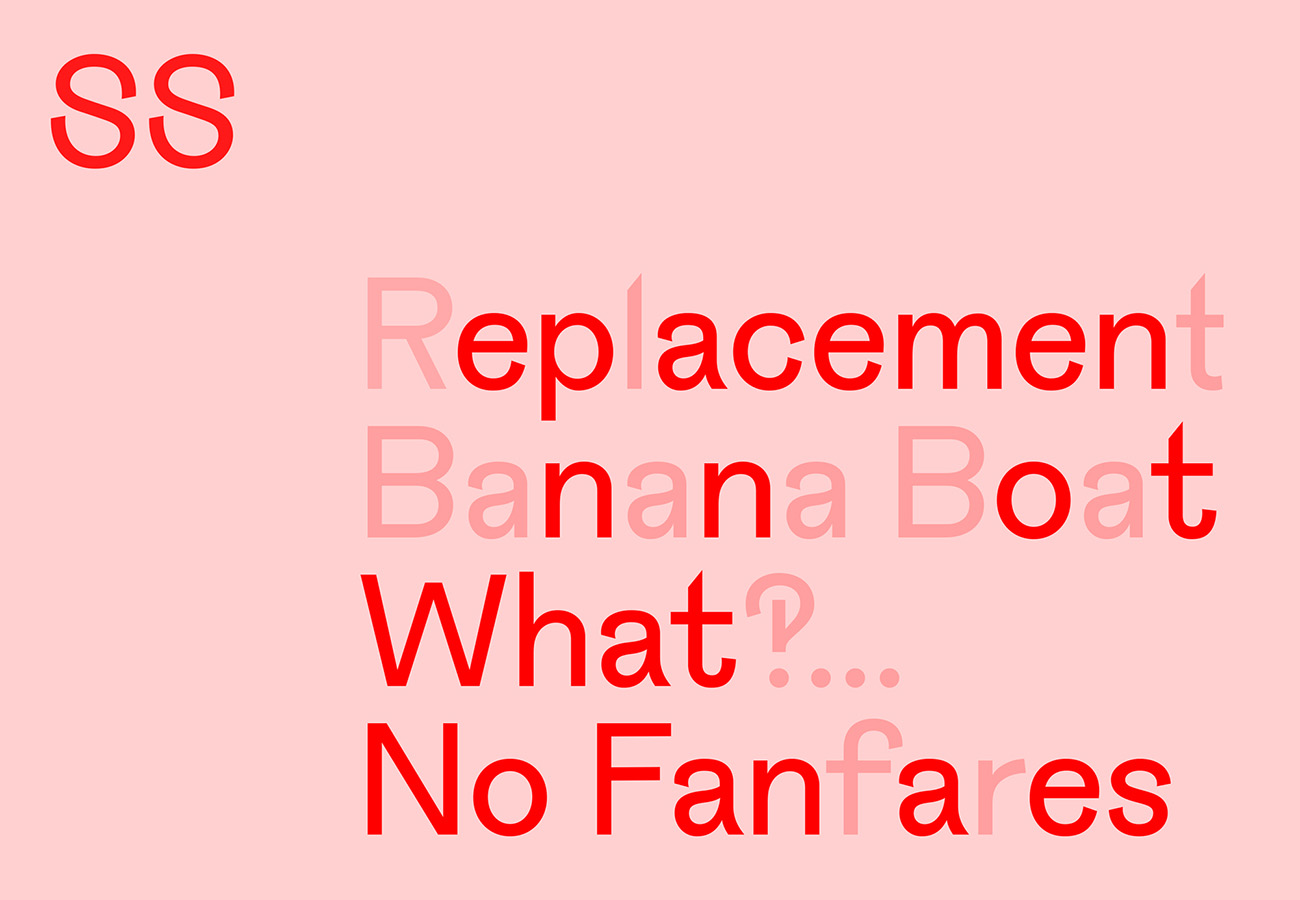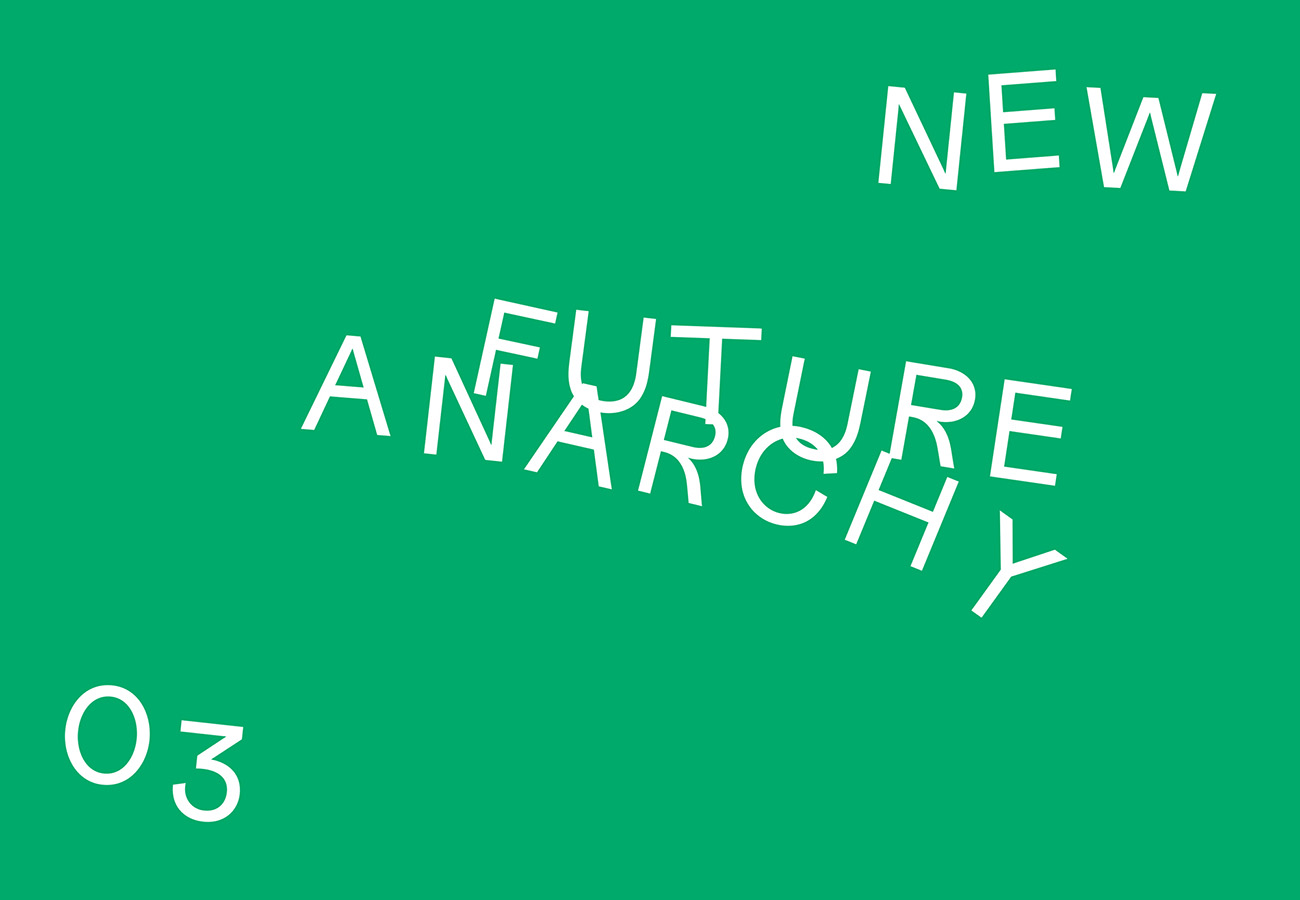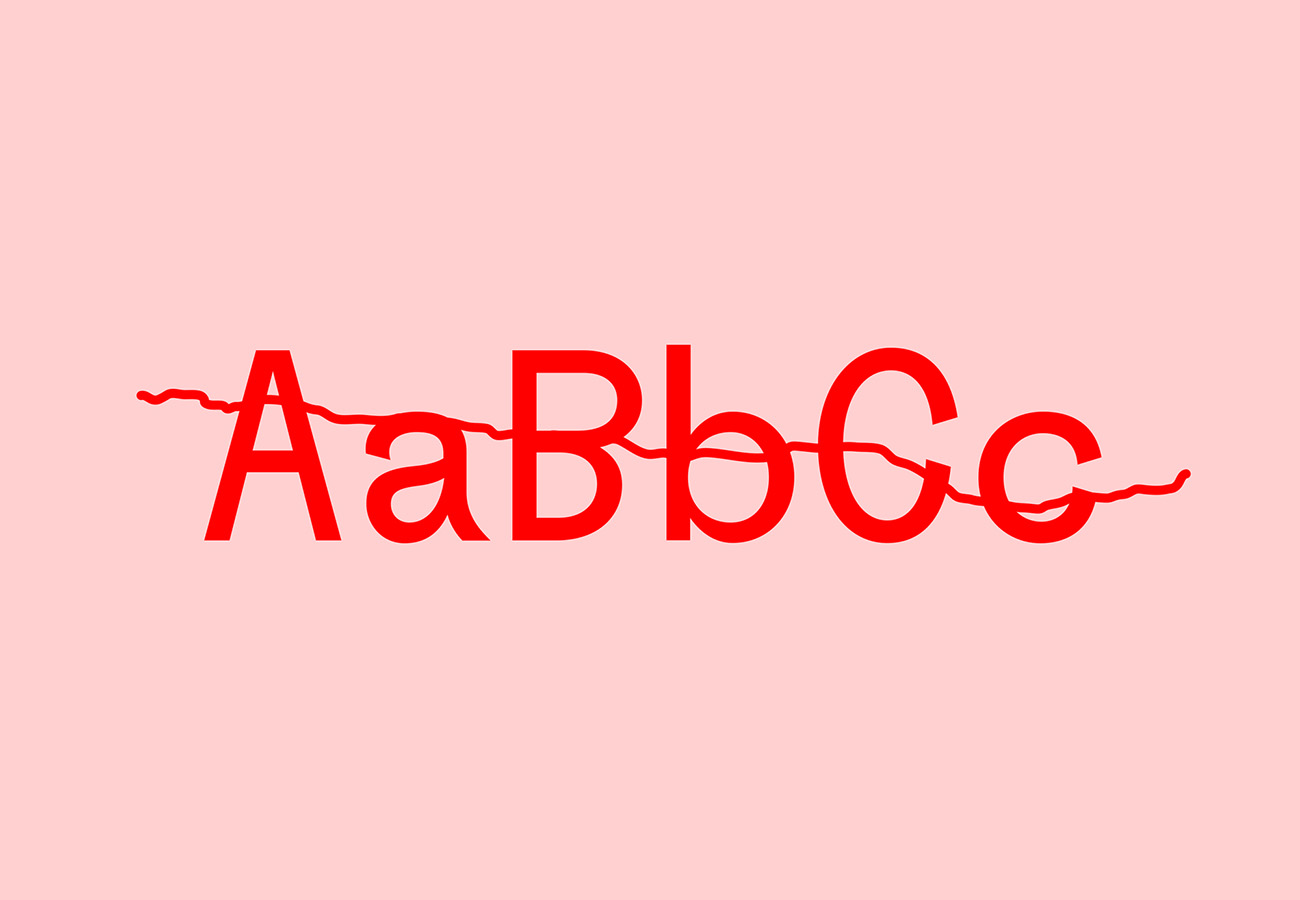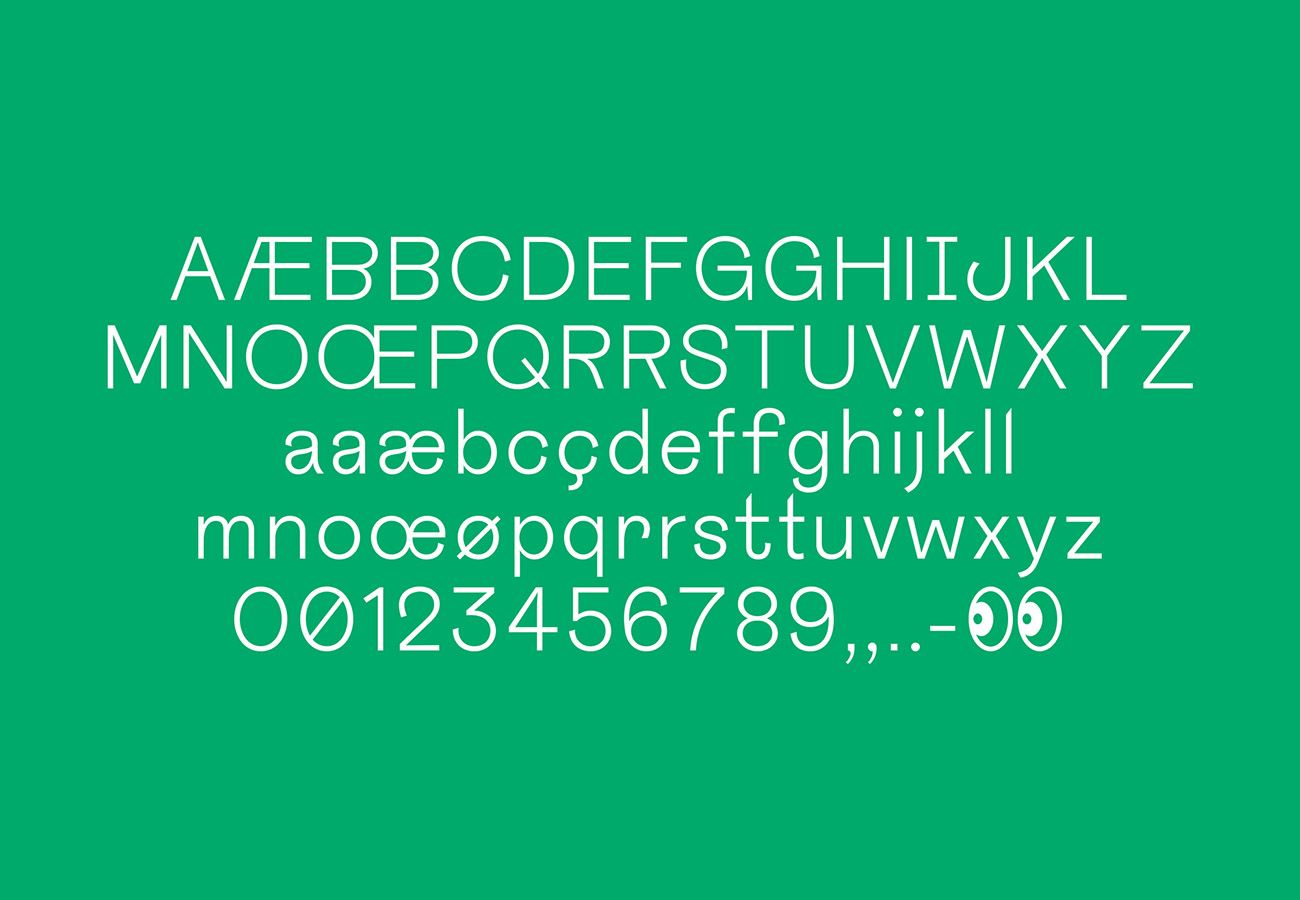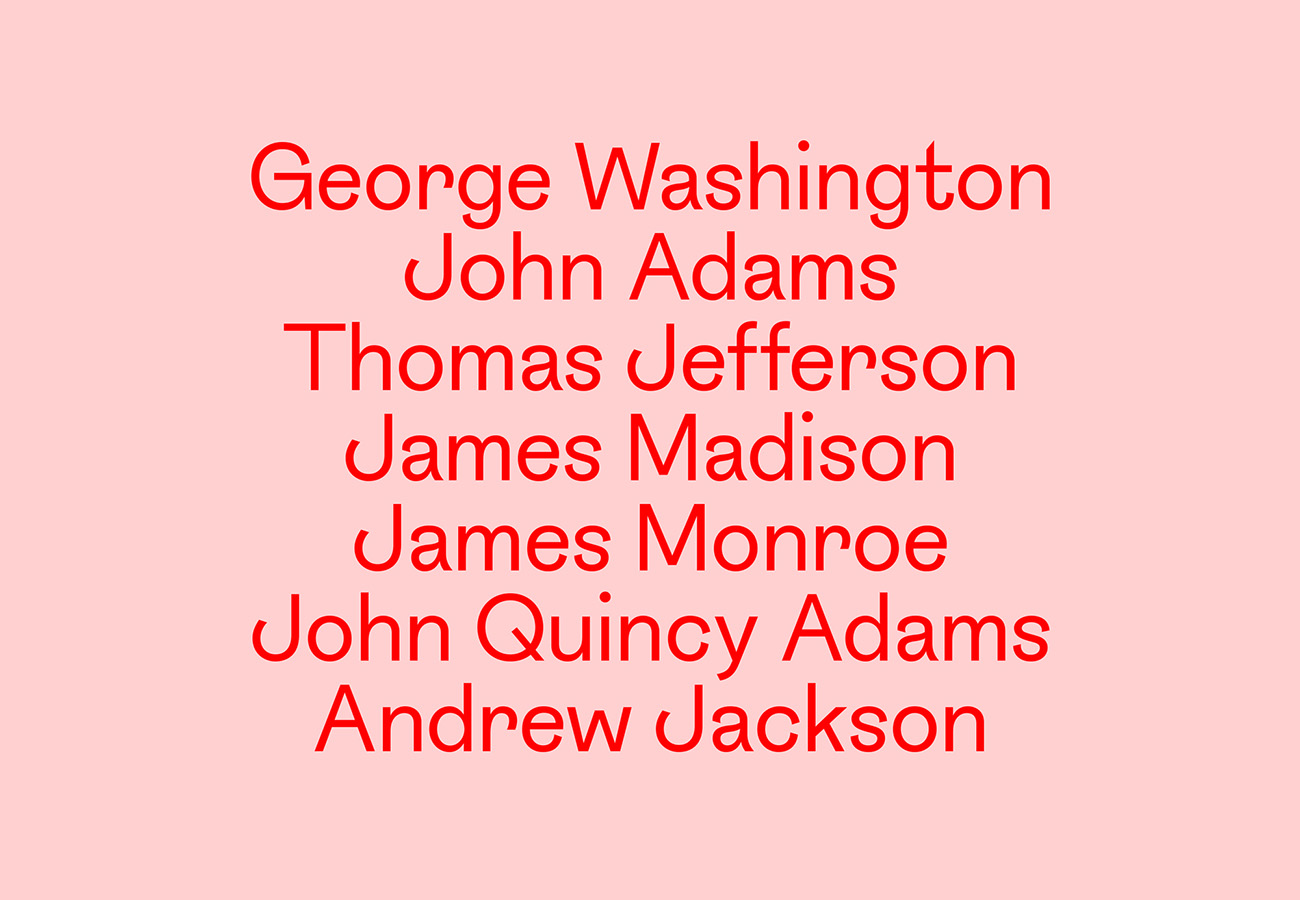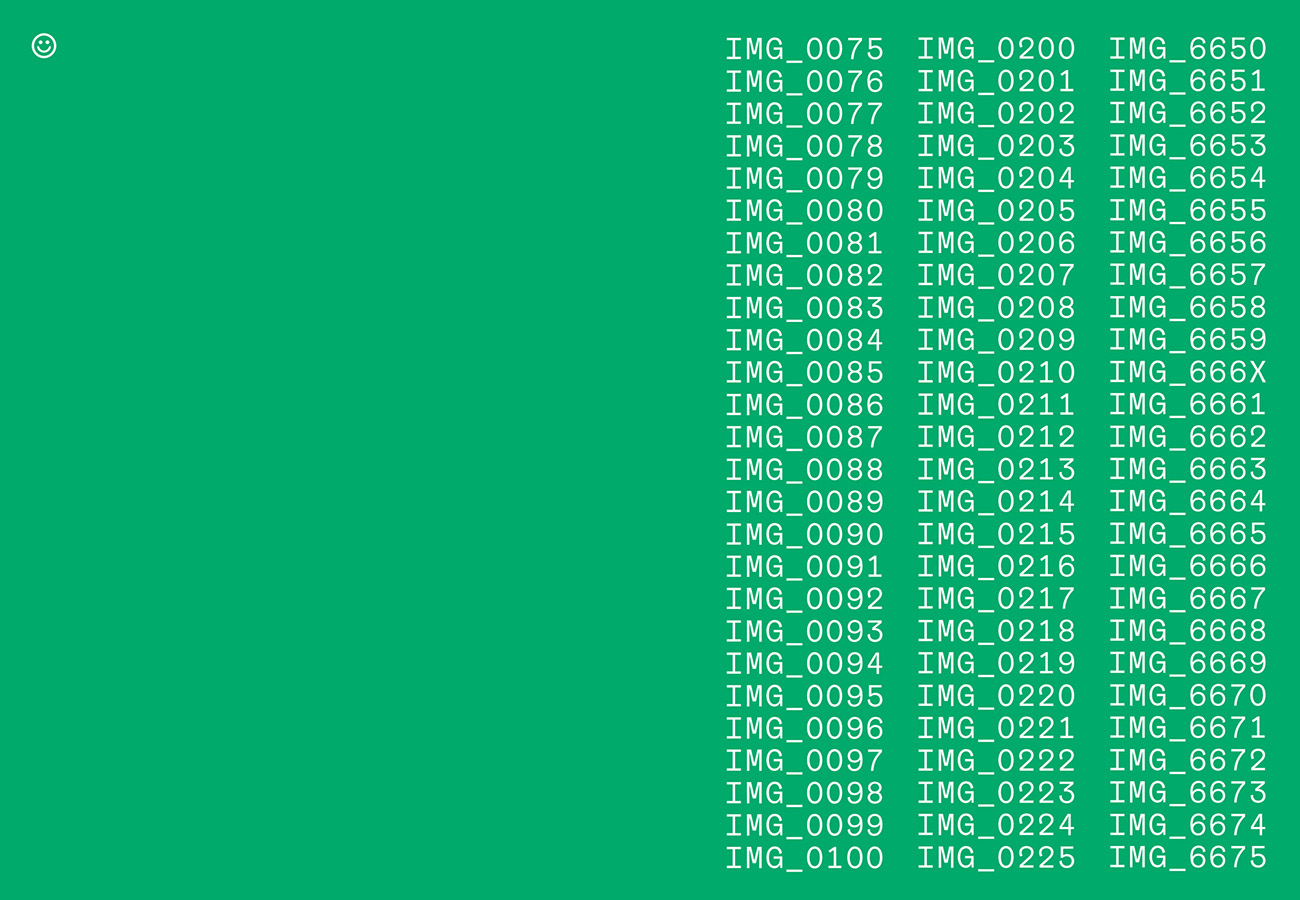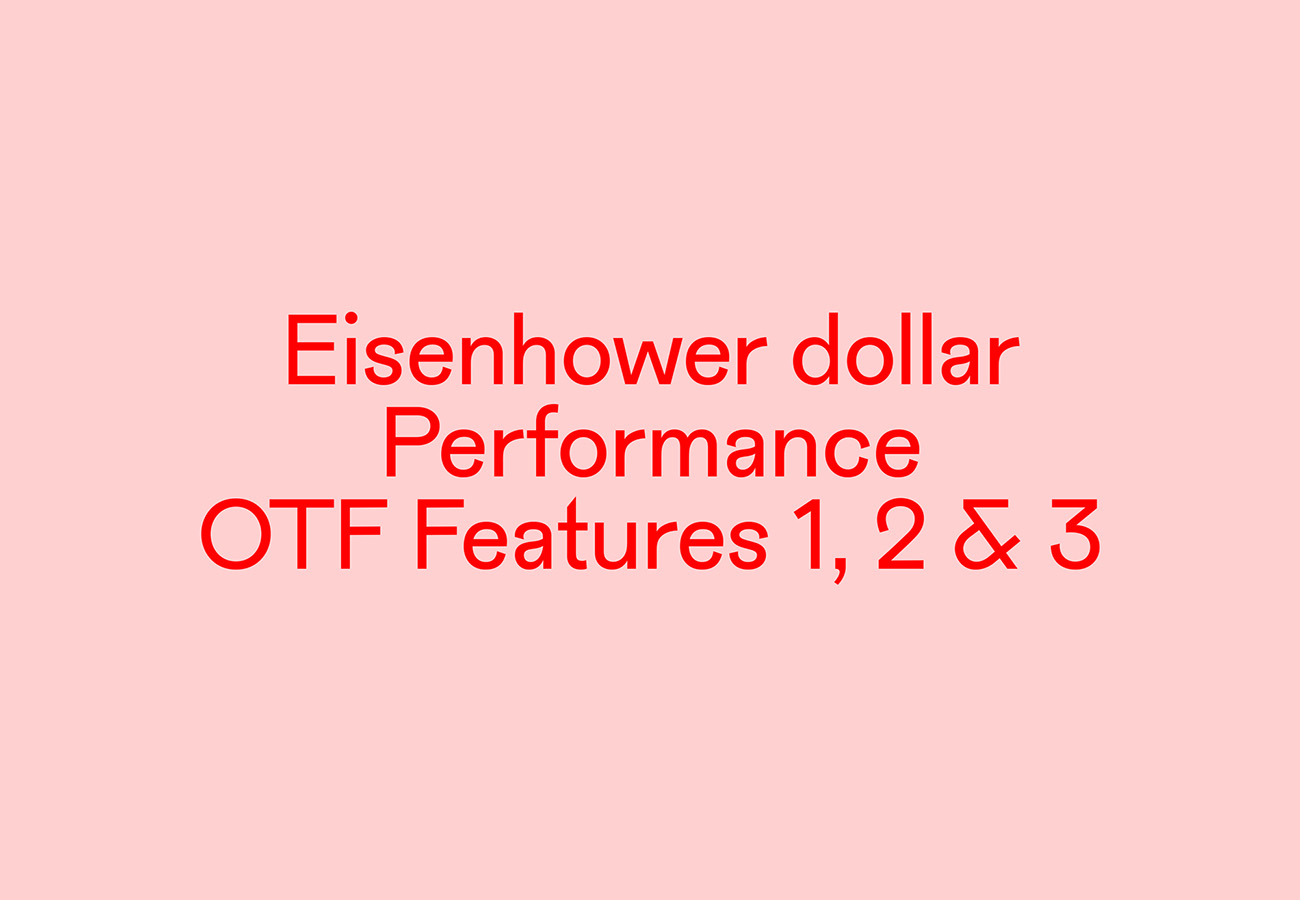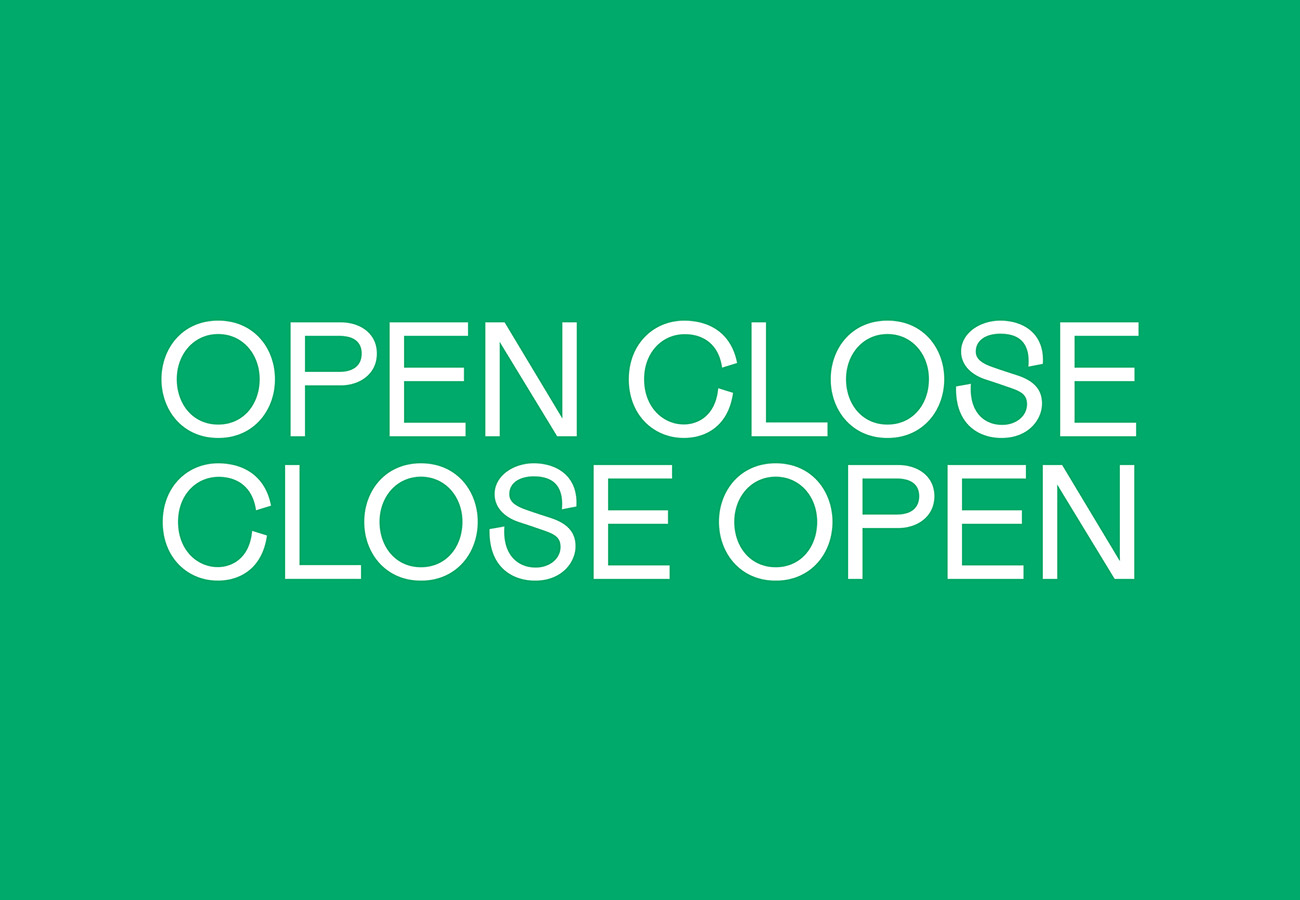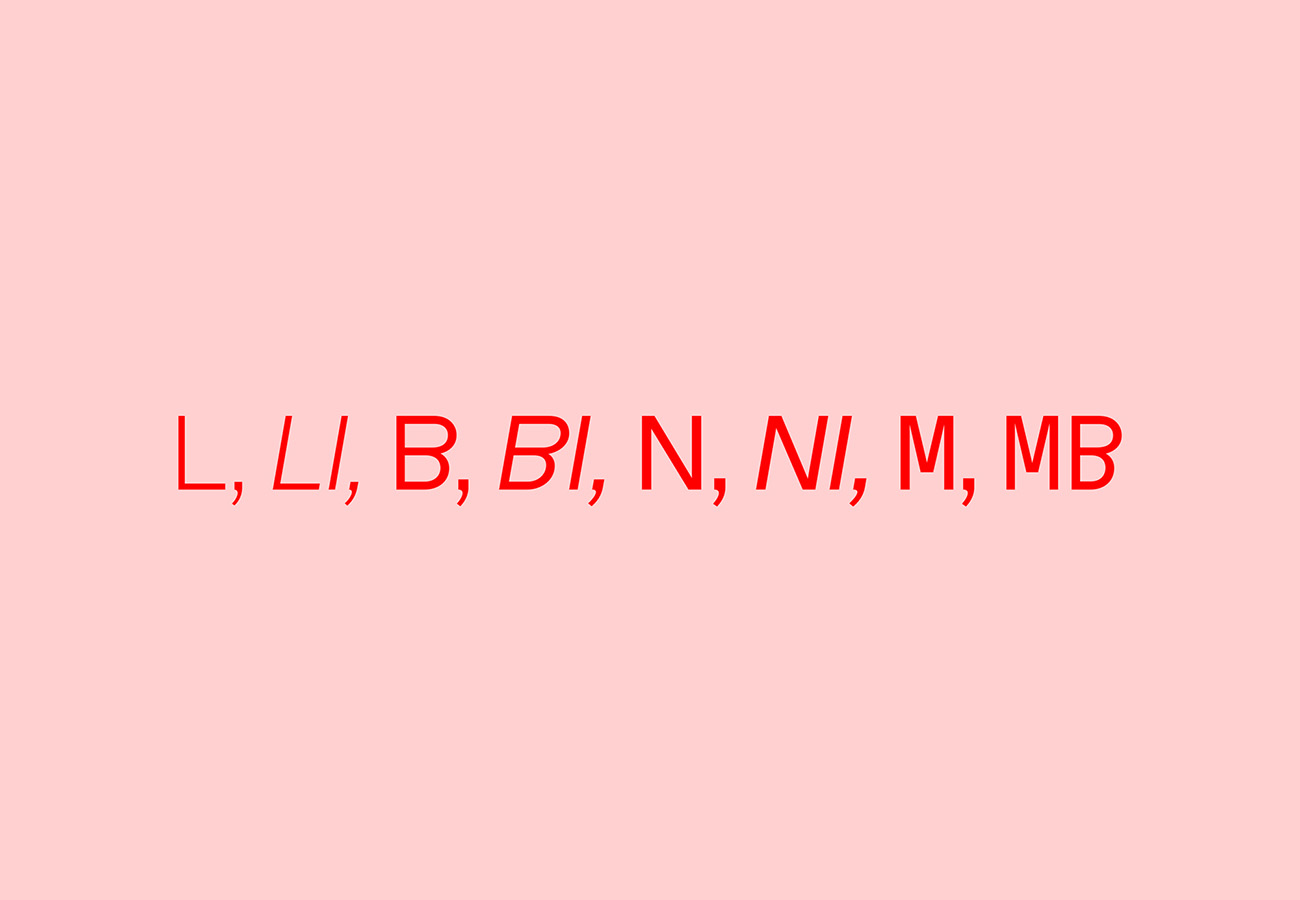
Anarchy is a grotesque type family, combining features of neo-grotesque, geometric and humanist typefaces by Linz-based type and graphic designer Paul Katterl. It is a contrast homage to classic 20th century grotesque typefaces. The font is available in 3 weights, Light, Book, Normal, with corresponding italics and two monospaced weights. For modification requests or any kind of collaboration you can also send a mail to .
Creator: Paul Katterl